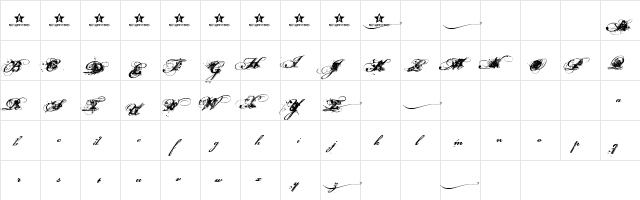
Foundry Billy Argel
FoundryBilly Argel
DesignerBilly Argel
Design Context for DIRTY CLASSIC Copyright (c) 2009 by Billy Argel. All rights reserved. Typeface
DIRTY CLASSIC Copyright (c) 2009 by Billy Argel. All rights reserved. has the warm character of retro typography — evoking diners, record sleeves, and the golden age of print advertising.
Font Pairing: Combine DIRTY CLASSIC Copyright (c) 2009 by Billy Argel. All rights reserved. with a simple slab or neutral sans — period-accurate companions reinforce the vintage feel without competing for attention.
Pro Tip: Use DIRTY CLASSIC Copyright (c) 2009 by Billy Argel. All rights reserved. for headlines and pull quotes rather than body copy — its personality is best appreciated in short, focused bursts.